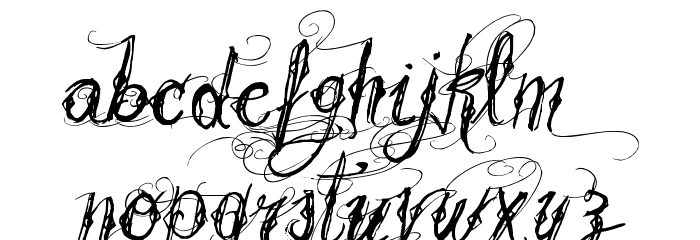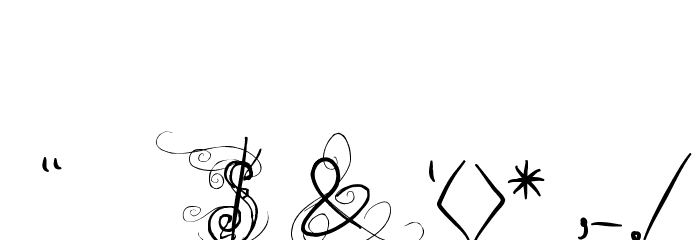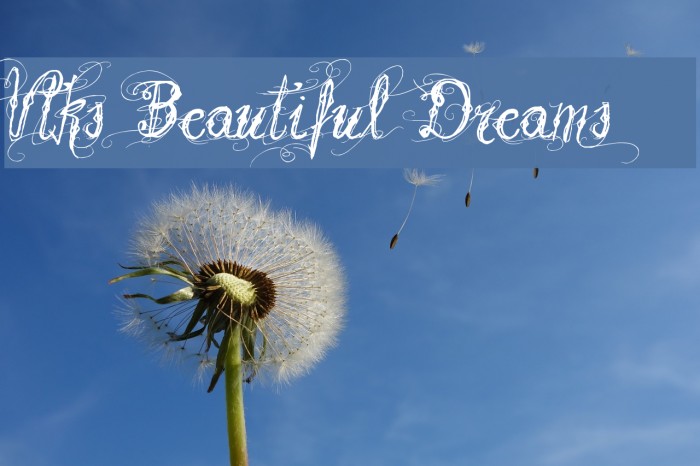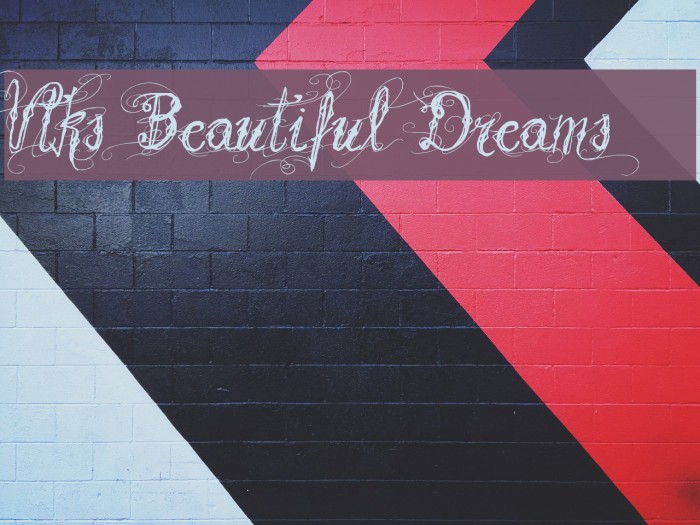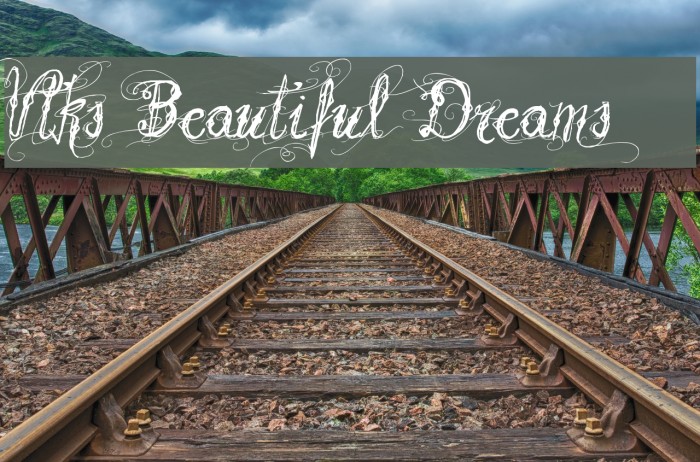
Vtks Beautiful Dreams Font
This font is an elaborate and decorative script style, characterized by its intricate swirls and flourishes that extend from each letter. The uppercase letters are particularly ornate, with loops and curls that give a sense of elegance and sophistication. The lowercase letters maintain this decorative style but are slightly more restrained, allowing for better readability. The numbers and special characters are equally embellished, maintaining the overall aesthetic. This font exudes a sense of whimsy and fantasy, making it ideal for creative and artistic projects.
An ornate and decorative script font with intricate swirls and flourishes.
- Proposed Projects: Ideal for wedding invitations, greeting cards, artistic posters, and branding that requires a touch of elegance and creativity.
- Use Case: Logos, Invitations, Artistic Projects